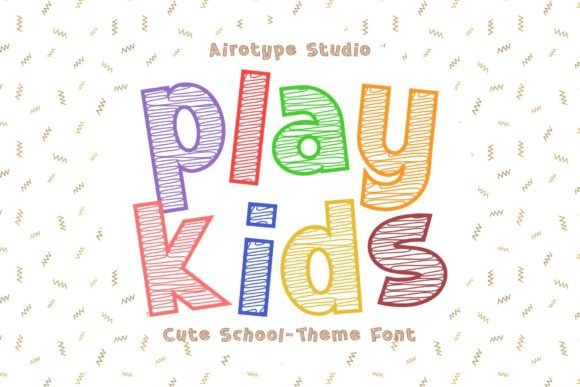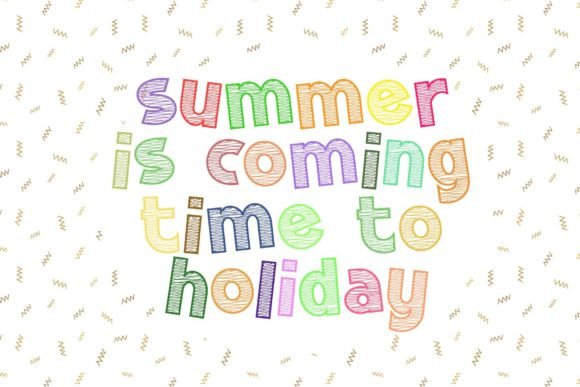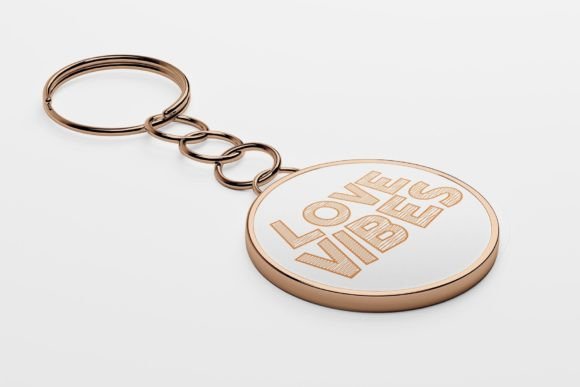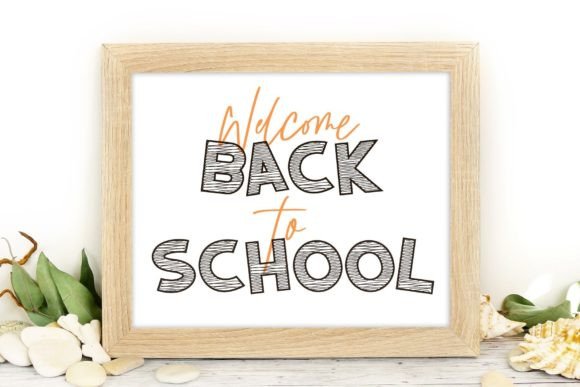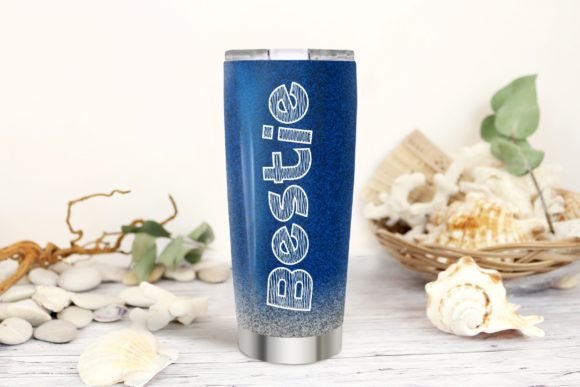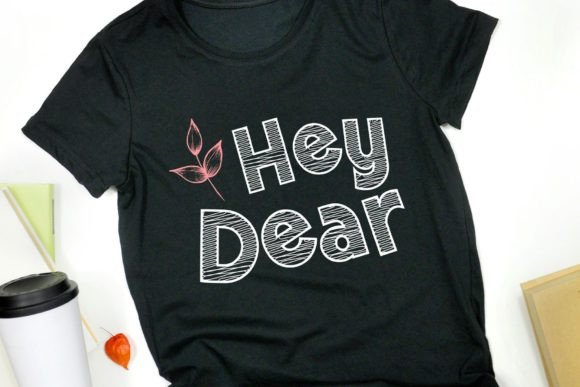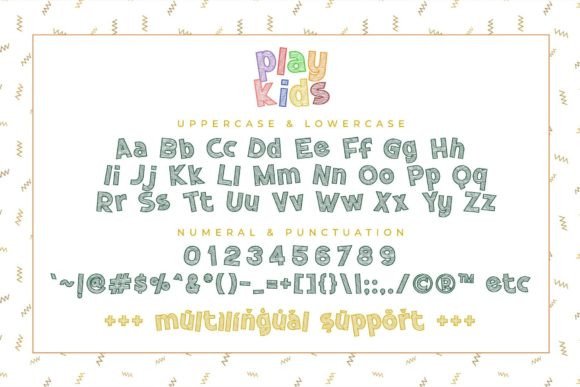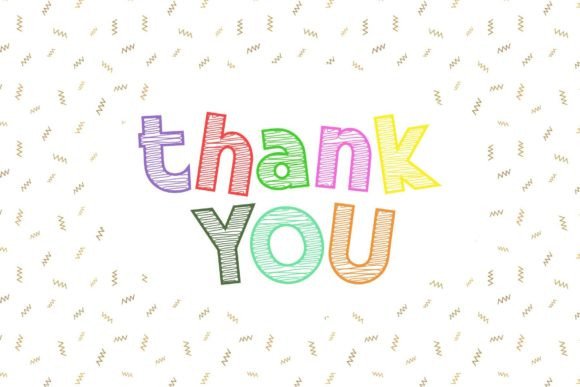
Play Kids Font
Play Kids is school and children-theme display font. This is bouncy, cheerful, cute, and bright.
Play Kids is so suitable for any children design, such as school theme, kindergarten, comic, cartoon, t-shirt design, and many others.